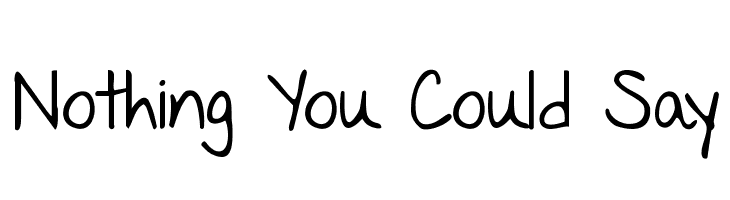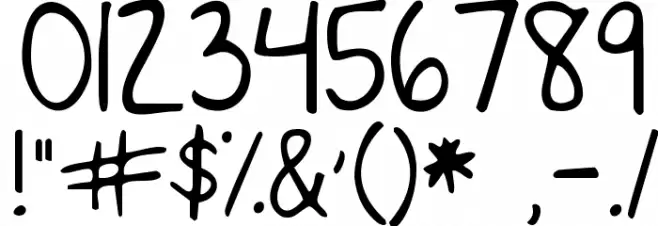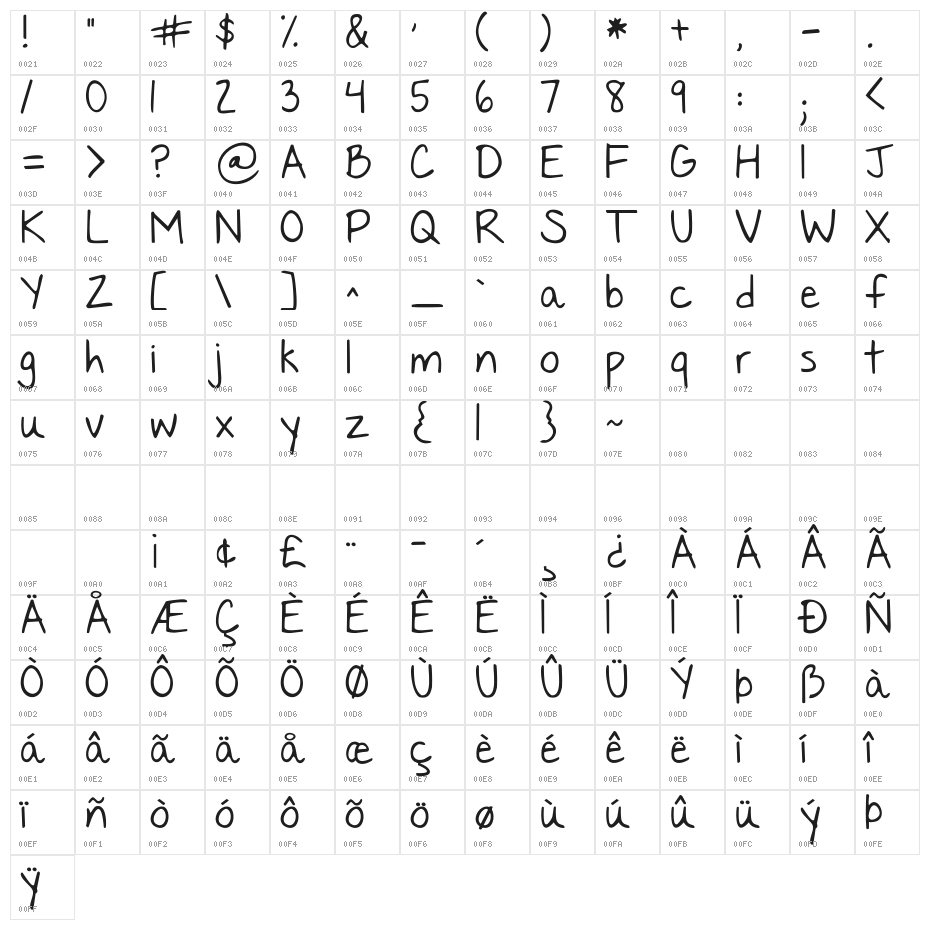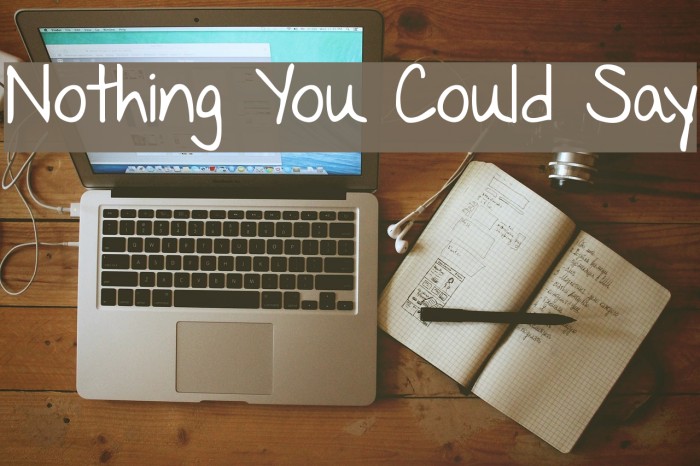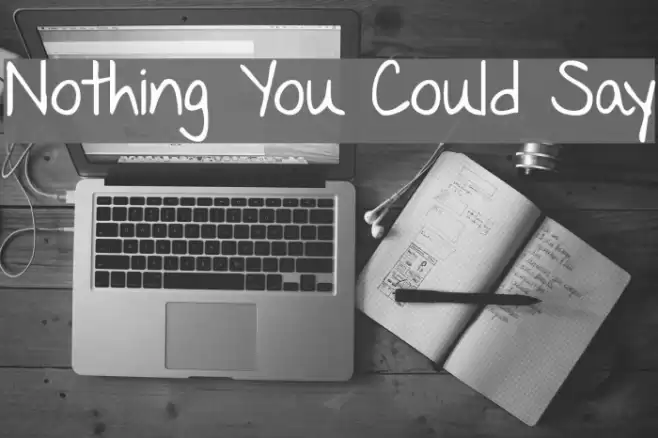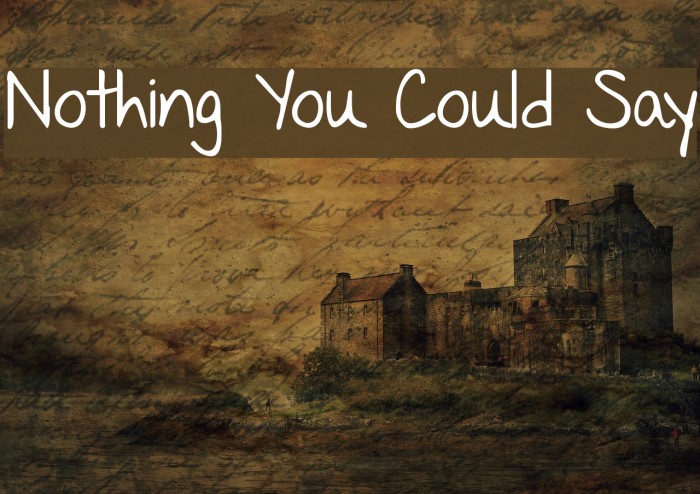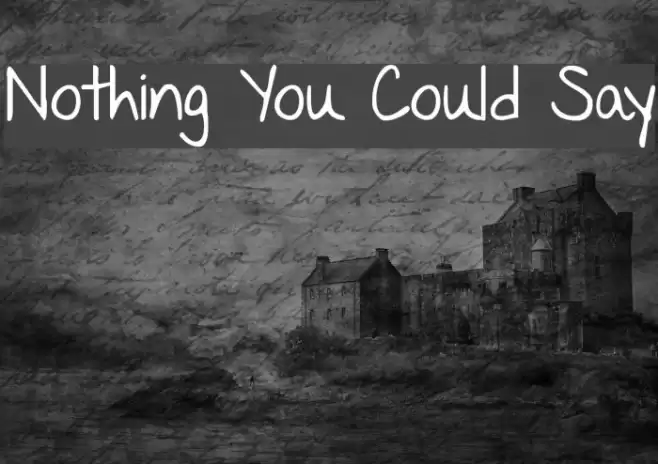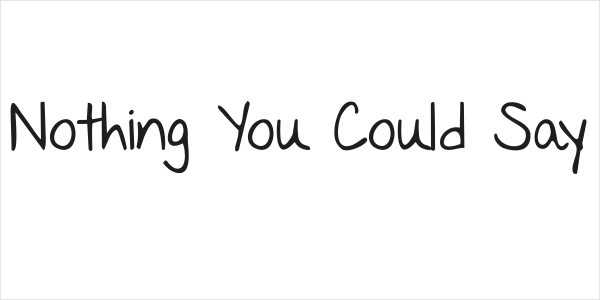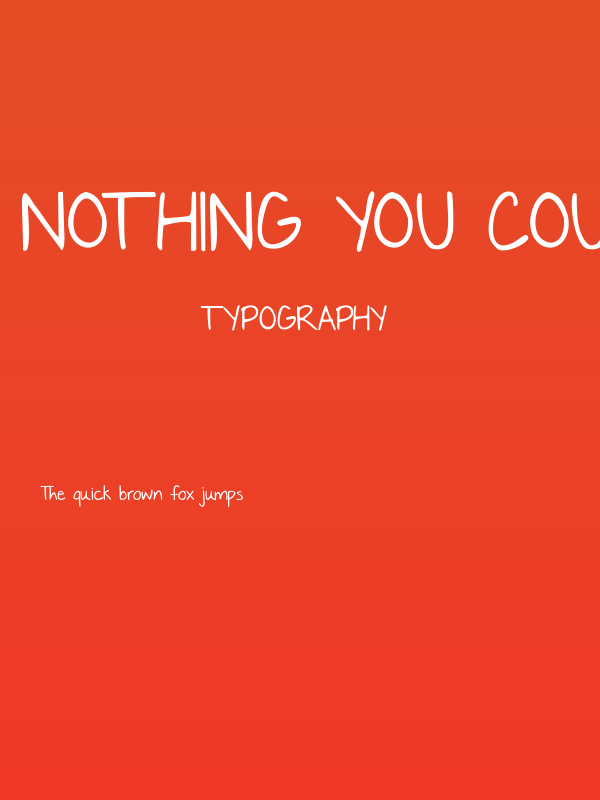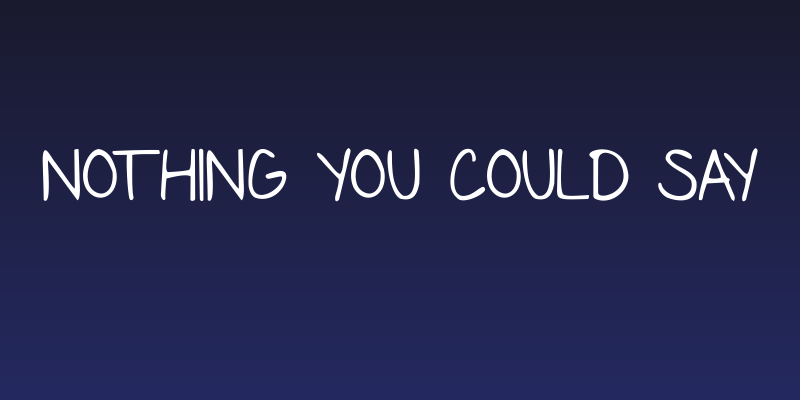
Nothing You Could Say Font
Nothing You Could Say Description
This playful and casual font features a handwritten style with a friendly and approachable appearance. The letters are slightly irregular, adding a personal touch that mimics natural handwriting. The uppercase and lowercase characters maintain a consistent flow, with rounded edges and smooth curves. The numerals and special characters are designed to match the overall style, ensuring a cohesive look across all text elements. This font's informal nature makes it ideal for projects that require a touch of personality and warmth.
| Use Case | Headlines, Informal text, Personal projects |
| Proposed Projects | Ideal for greeting cards, children's books, personal blogs, and informal branding. |